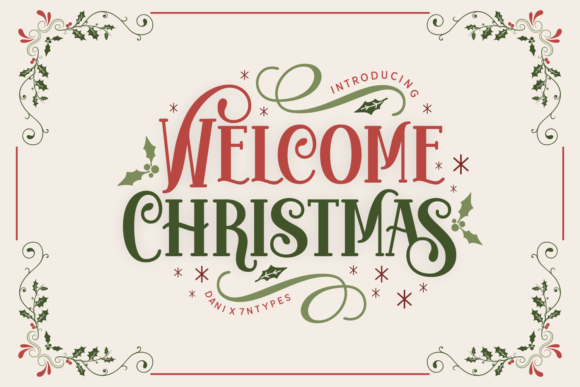
Looking for the best fonts to use for your Christmas cards? Look no further than Welcome Christmas Font, the perfect choice for your holiday designs! Created by Dani from 7NTypes, this joyful and festive display font is sure to add a touch of holiday cheer to all of your creations.
With its playful and whimsical design, Welcome Christmas Font is the ideal choice for any project that needs a touch of holiday magic. Whether you're designing cards, invitations, posters, or anything else, this font is sure to make your designs come alive!
What sets Welcome Christmas Font apart from other holiday fonts is its unique combination of style and versatility. With its bold lines and elegant curves, this font is perfect for adding a touch of sophistication to your designs, while still capturing the fun and festive spirit of the holiday season.